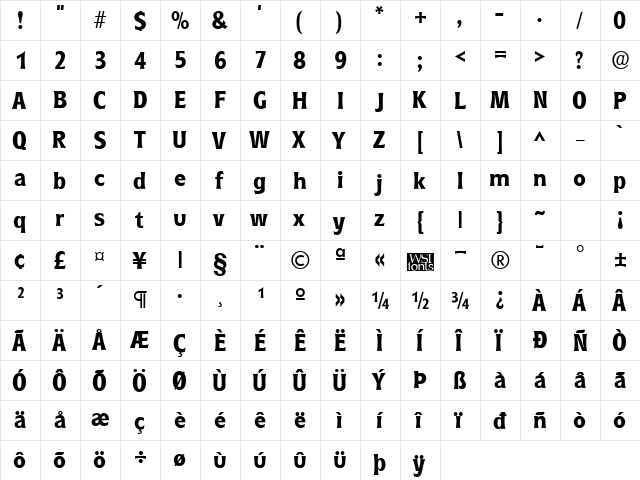
RyndersExtraBold Regular
Design Context for RyndersExtraBold Typeface
RyndersExtraBold offers clean, dependable letterforms without strong stylistic allegiance, making it a practical choice for designers who need flexibility. The heavy weight commands attention and anchors typographic hierarchies.